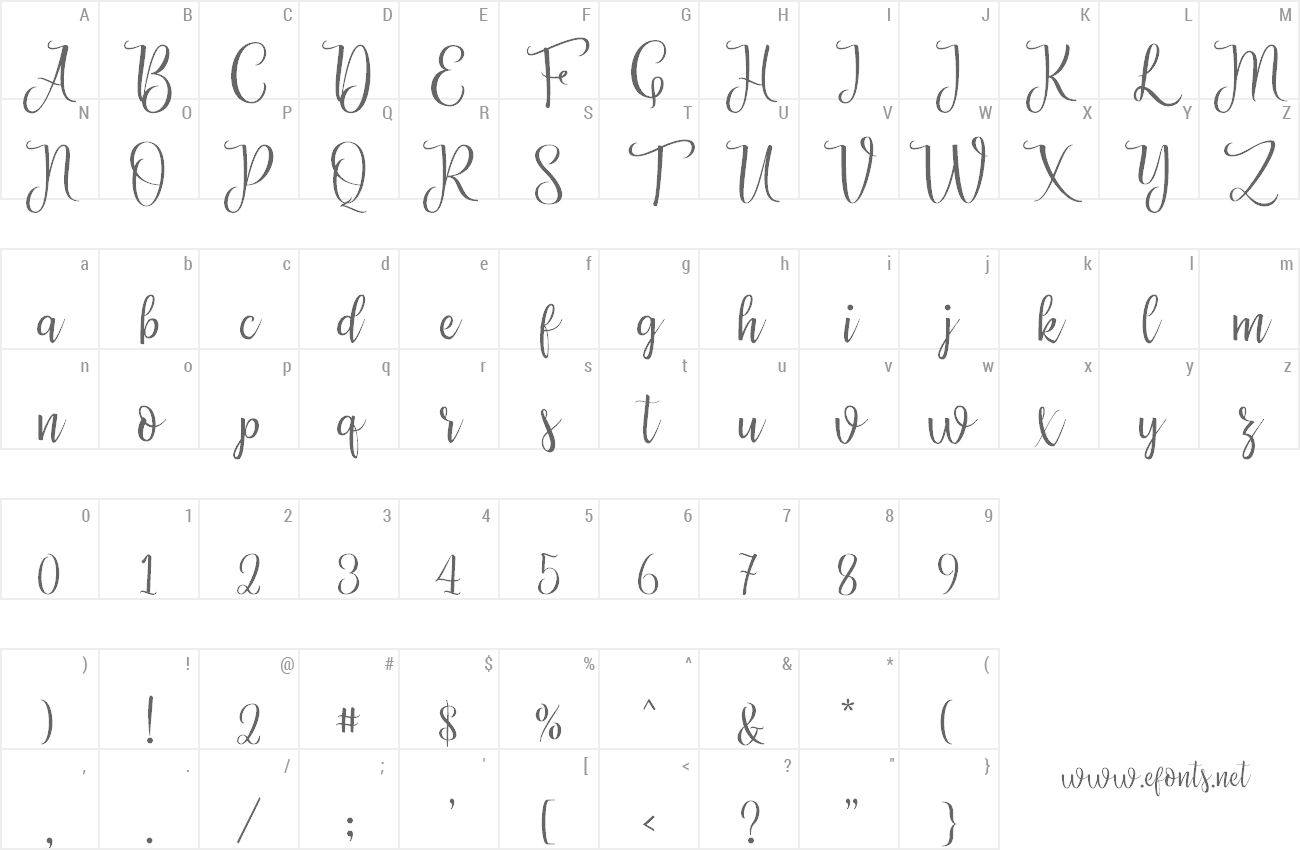
| Font name: | Priscilla Script |
| Author: | Ianmikraz |
Priscilla Script Free Typeface � Font Free Commercial Use Priscilla Script Free Font Typeface is a new Modern Calligraphy Typeface Fonts collection from Ianmikraz studio. Combines from copperplate to contemporary typeface, classic, beauty and elegant touch. You can Donate to help me create more awesome Free Typeface here https://paypal.me/ianmikraz Visit my site at http://ianmikraz.com/freebies/ for more freebies. Have fun !! Thanks Ian Mikraz |